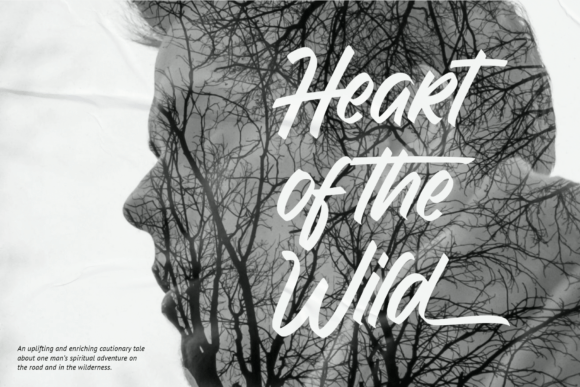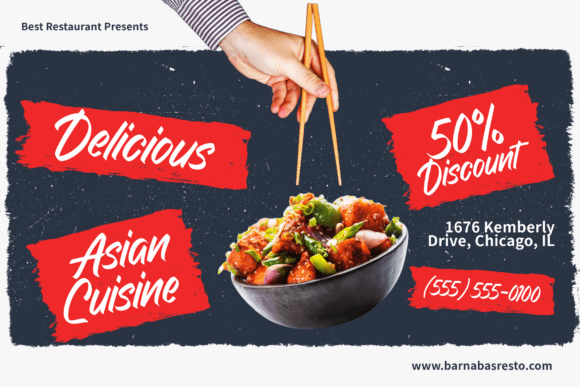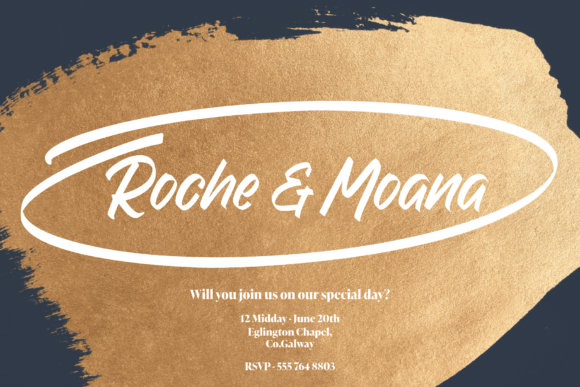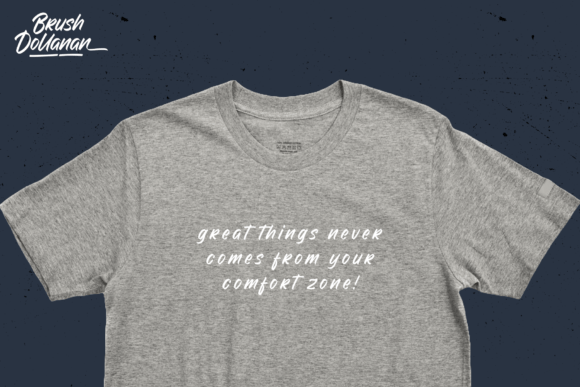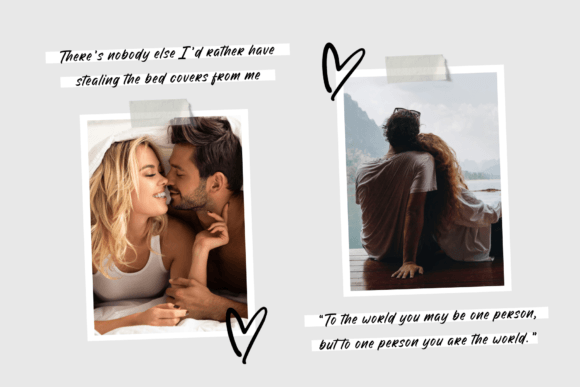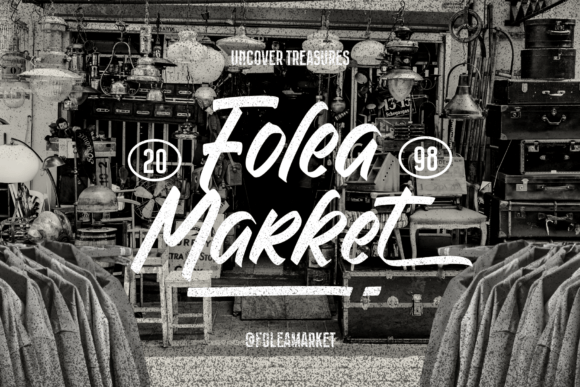
Unleashing the Raw Charm of Brush Dollanan Font
Have you ever been struck by the magic of a spontaneous doodle, as the lines flow effortlessly onto the page, imbuing your thoughts with a burst of creativity? That’s exactly what the Brush Dollanan Font aims to capture – the unbridled energy of a paintbrush’s glide, distilled into a font that’s as free-spirited as it is bold.
Developed with the intention of lending an expressive edge to your designs, Brush Dollanan Font is a versatile and vivacious addition to any creative project. Whether you’re crafting a striking poster, crafting captivating headlines, or seeking to infuse your branding with a hint of artisanal charm, this font seamlessly adapts to suit your needs.
As a valuable tool for designers, Brush Dollanan Font offers a textured finesse and free-flowing dynamism that’s hard to resist – a perfect blend of genuine handwriting’s appeal and a chic, modern twist, exuding an air of authentic spontaneity and creativity.
Brush Dollanan Font Key Features
- Font Family: Brush Dollanan, with 6 styles: Regular, Italic, Bold, Bold Italic, Black, and Black Italic.
- Unique Characteristics: Features a unique, hand-drawn style with subtle brushstrokes and imperfections, giving it a personal and artistic feel.
Designer Review: Brush Dollanan Font
At first glance, Brush Dollanan Font seems like a charming addition to any design project. ✨ The font’s cursive script and playful feel immediately catch the eye, making it perfect for creative and artistic projects. ✨ Its irregularities and brush-like strokes add a unique touch, giving your design a personal and handmade feel.
However, there are some limitations to consider. ⚠️ The font’s irregularities can sometimes make it difficult to read, especially in smaller font sizes. ⚠️ Additionally, the font may not be the best choice for projects that require precision and clarity, as its playful feel can sometimes come across as sloppy.
Here are some specific pros and cons:
- Unique and playful feel
- Perfect for creative and artistic projects
- Irregularities and brush-like strokes add character
- May be difficult to read in smaller font sizes
- Not suitable for projects requiring precision and clarity
Overall, Brush Dollanan Font is a great choice for designers who want to add a touch of whimsy and personality to their projects. However, it’s essential to consider the limitations and use it judiciously to avoid readability issues.
Getting the Most Out of Brush Dollanan Font
Here are some tips to get the most out of Brush Dollanan Font:
- Use it for titles, headings, and other large text elements to add a touch of elegance.
- Combine it with other fonts to create a unique and eye-catching design.
- Experiment with different font sizes and styles to achieve a cohesive look.
Alternatives to Brush Dollanan Font
Great Vibes is a beautiful, handwritten font perfect for adding a touch of elegance and sophistication to your designs. It’s ideal for use in invitations, quotes, and other creative projects where a personal touch is needed. Compared to Brush Dollanan Font, Great Vibes has a more refined and polished look, making it suitable for a wider range of applications.
Carolyna Pro is a modern, cursive font designed for use in branding, advertising, and editorial projects. It’s highly customizable, allowing designers to adjust the font’s style and feel to suit their specific needs. While Brush Dollanan Font has a more rustic, vintage feel, Carolyna Pro is more contemporary and versatile, making it a great choice for designers who want a more modern look.
Playfair Display is a luxurious, high-end font perfect for use in high-end branding, advertising, and editorial projects. It’s highly ornate and decorative, making it ideal for use in titles, headings, and other areas where a sense of grandeur is needed. Compared to Brush Dollanan Font, Playfair Display is more formal and sophisticated, but shares a similar sense of elegance and refinement.